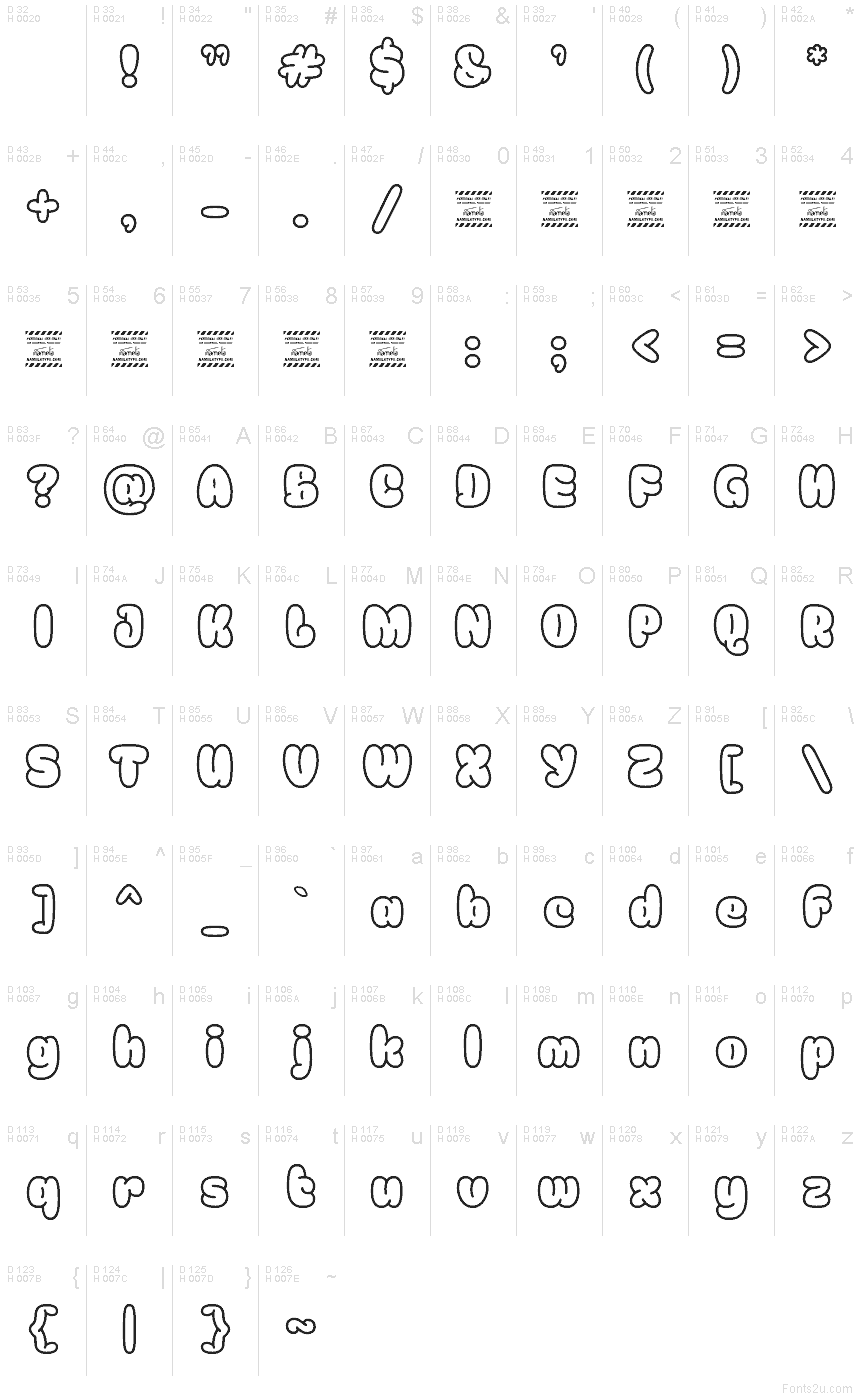
Meila Arabic DEMO Line Regular
Meila Arabic Line font by Namela Type is a unique display typeface with casual thick outlines that look cartoon-like. The font is of bold weight, has rounded bubble-like shapes, and delivers a friendly retro feel. All of these characteristics contribute to the font’s fun-filled lighthearted style.